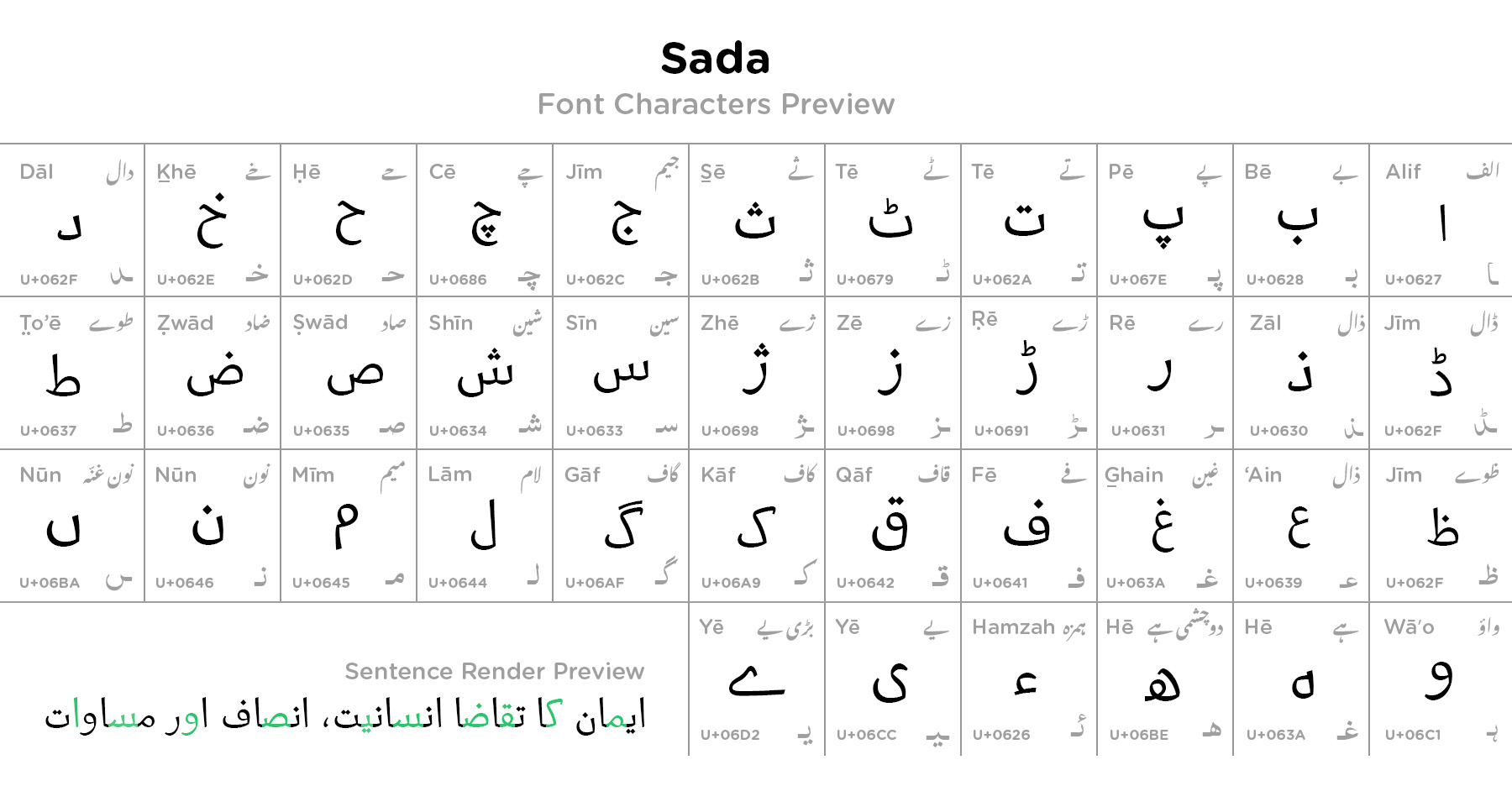
Sada
Sada is a beautiful Arabic font that has a balanced design. It has a clean and refined structure. The letters are well-spaced, with a moderate thickness that ensures clarity. The font does not have a geometric design. It is written free handed and in a very comfy mood. The balance between boldness and softness makes it suitable for both display and body text. It does not have sharp edges but a softer and more modern approach. It avoids excessive flourishes or decorations while somehow feeling like it has been written by hand. Sada is available in 2 different weights, including:
Its elegant design makes it perfect for Arabic branding, logos, headlines, titles, social media, Instagram posts, promotional content, books, magazines, web designs, UI and much more. It has a welcoming, professional, and aesthetically pleasing appeal.